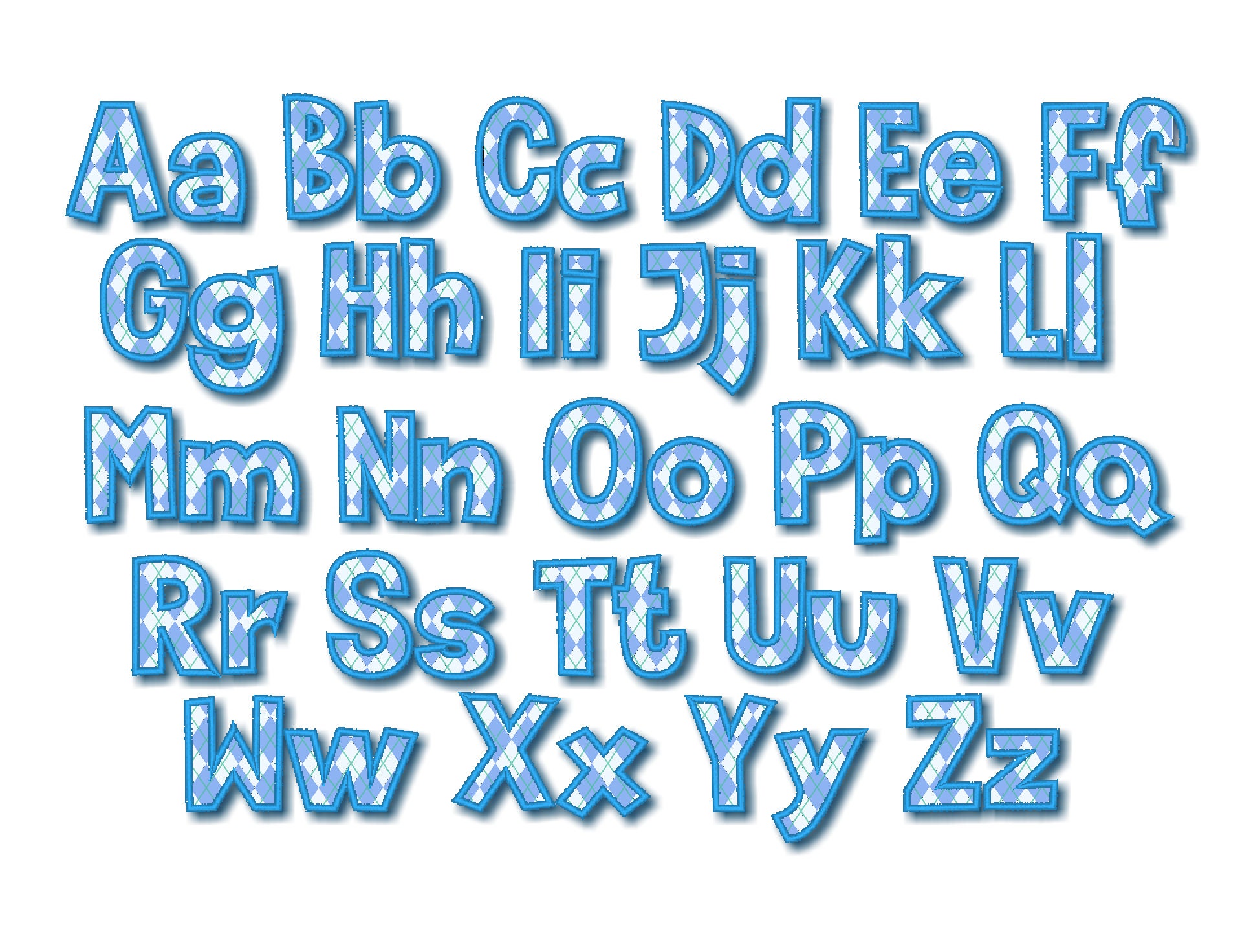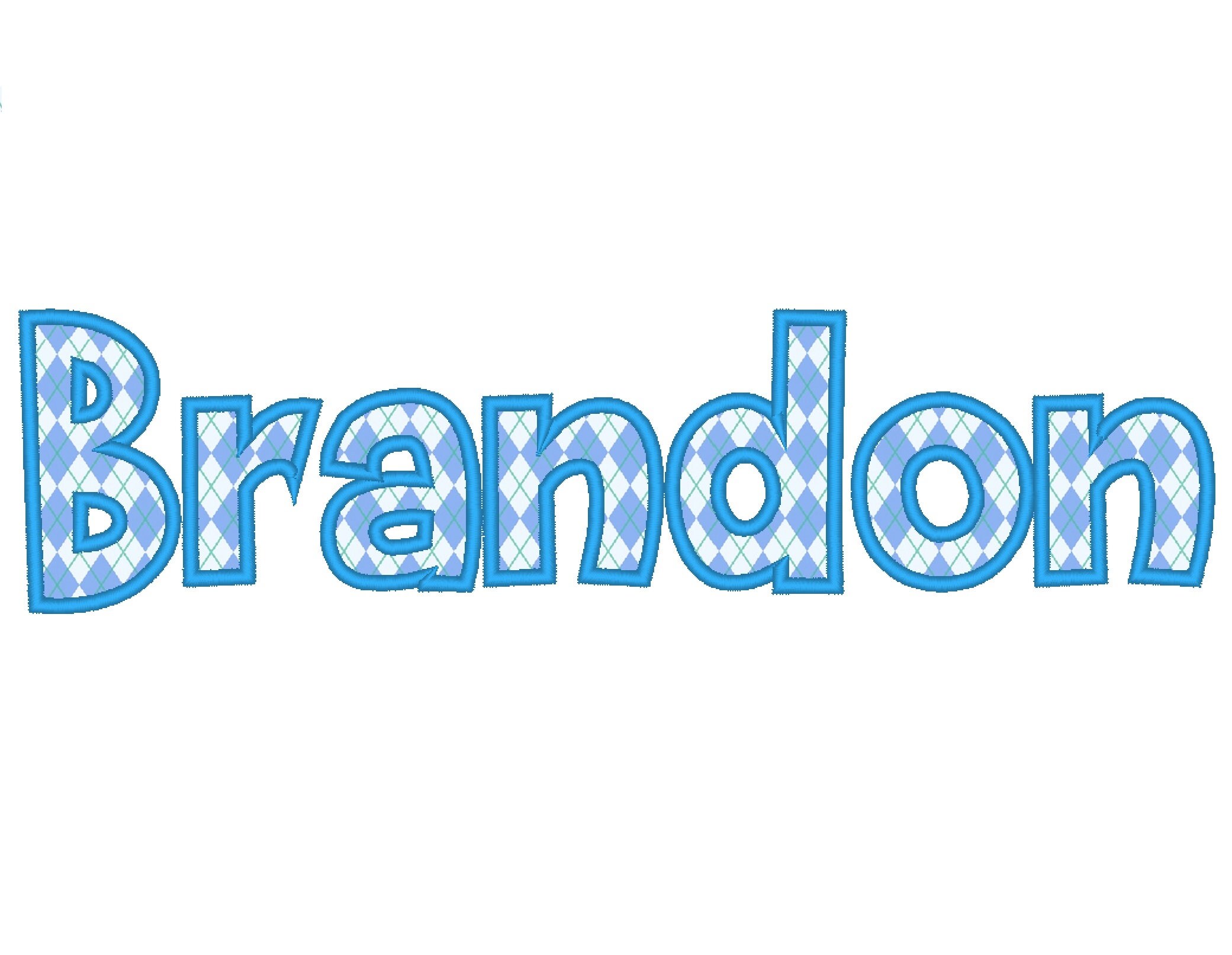
Monogram Font applique machine embroidery designs in sizes 1.5, 2, 2.5, 3, 4 and 4.5 inches, beautiful kids baby name alphabet, BX included
Uppercase and lowercase letters
The satin stitch is too wide for the letters. In some cases you could barely see the fabric of the applique.